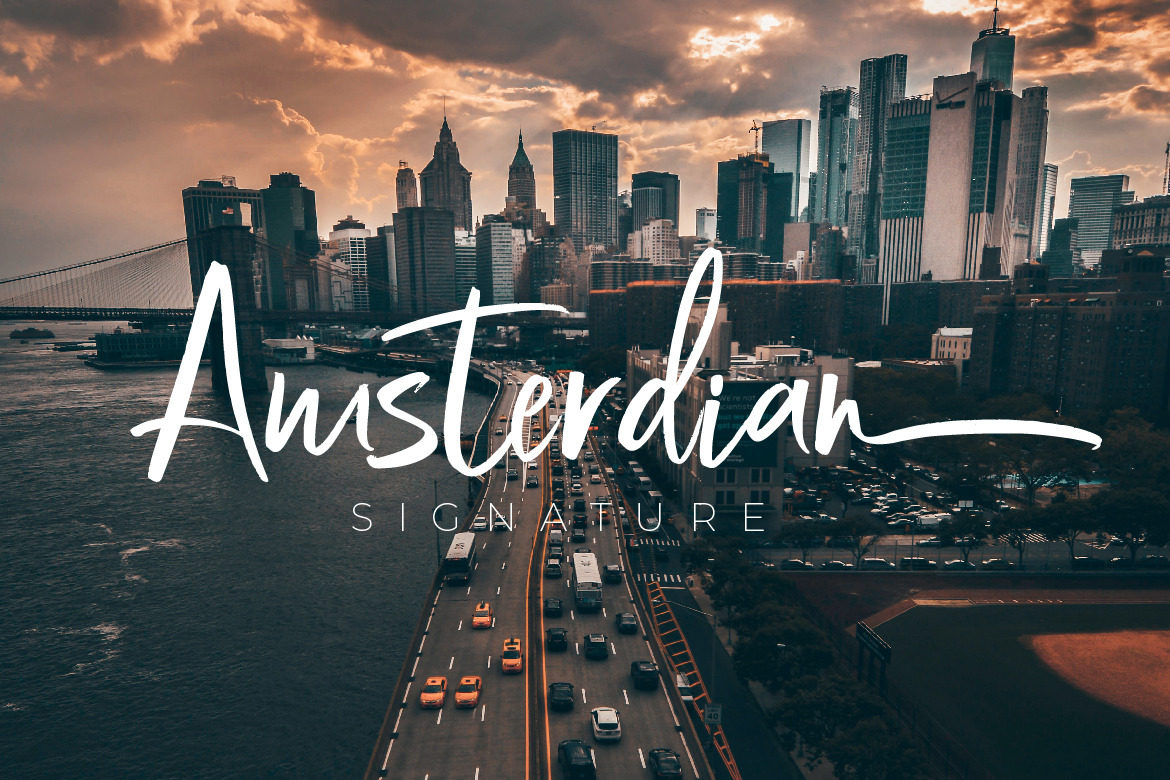
Amsterdian Signature Font
Introducing Amsterdian Signature Brush font, This font is perfect for design purposes such as lovely design for wedding, crafting, posters, business cards, and others.
- alternate stylistic